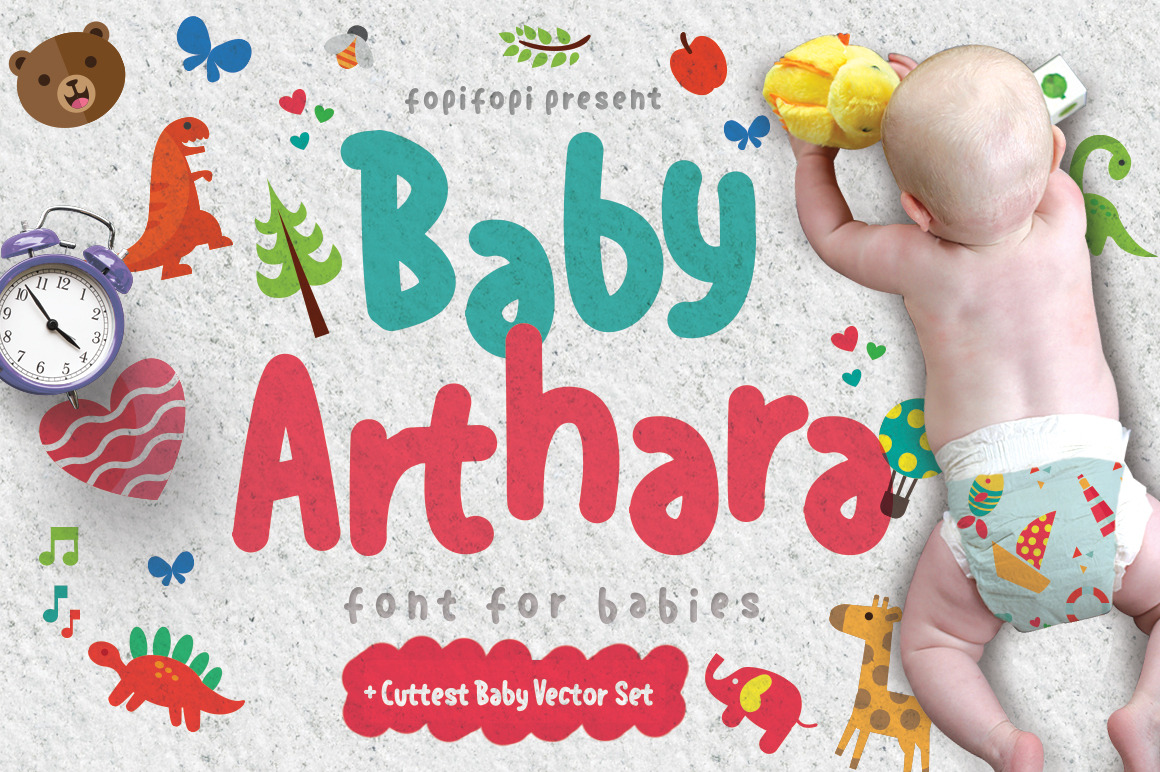
Everybody love baby! Everybody want to have cute baby..
Yo-Dad and Mom, greetings from Baby Arthara! Baby Arthara is a font for babies. The basic personalities of Baby Arthara are cuteness and cheerful. Better, since it’s not a loner, it comes with Bonus Baby Vector Pack. They are meant to cheer up anything they are put into: kids wear, baby shirt, baby jumpsuit, baby books, diapers, greeting card, birthday invitation,wrapping paper, etc . Literally, everything that sparks up the joy around!